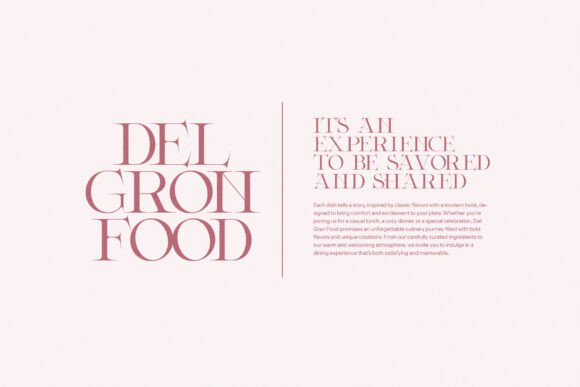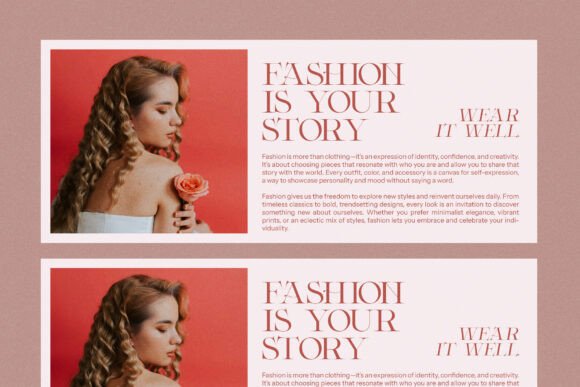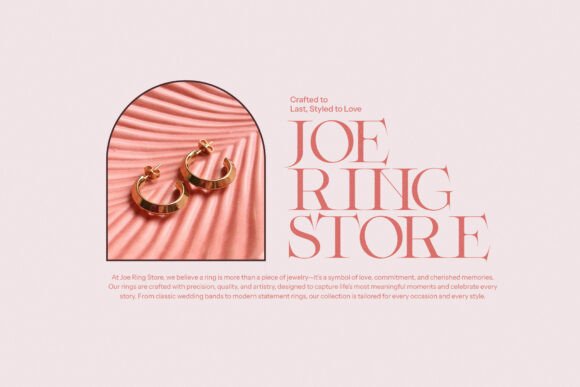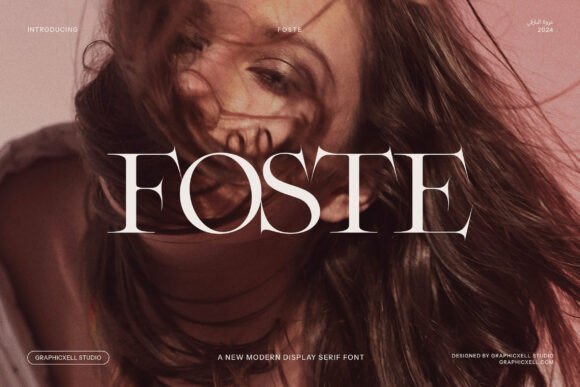
Introduction to Foste Font
Introducing **Foste**, a bold and elegant display serif font that effortlessly captures the essence of vintage sophistication.
With its sharp, elongated corners and unique proportions, Foste channels a classic aesthetic while offering a fresh twist on traditional serif fonts Its striking design is perfect for projects that demand both a refined and commanding presence, making it an ideal choice for logos, branding, and high-impact design work.